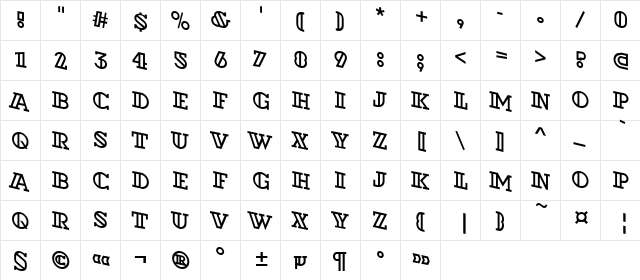
a_DexterOtlSpDn Regular
Design Context for a_DexterOtlSpDn Typeface
a_DexterOtlSpDn takes a measured approach to typography — its balanced proportions and neutral character make it a reliable workhorse for both digital and print work.